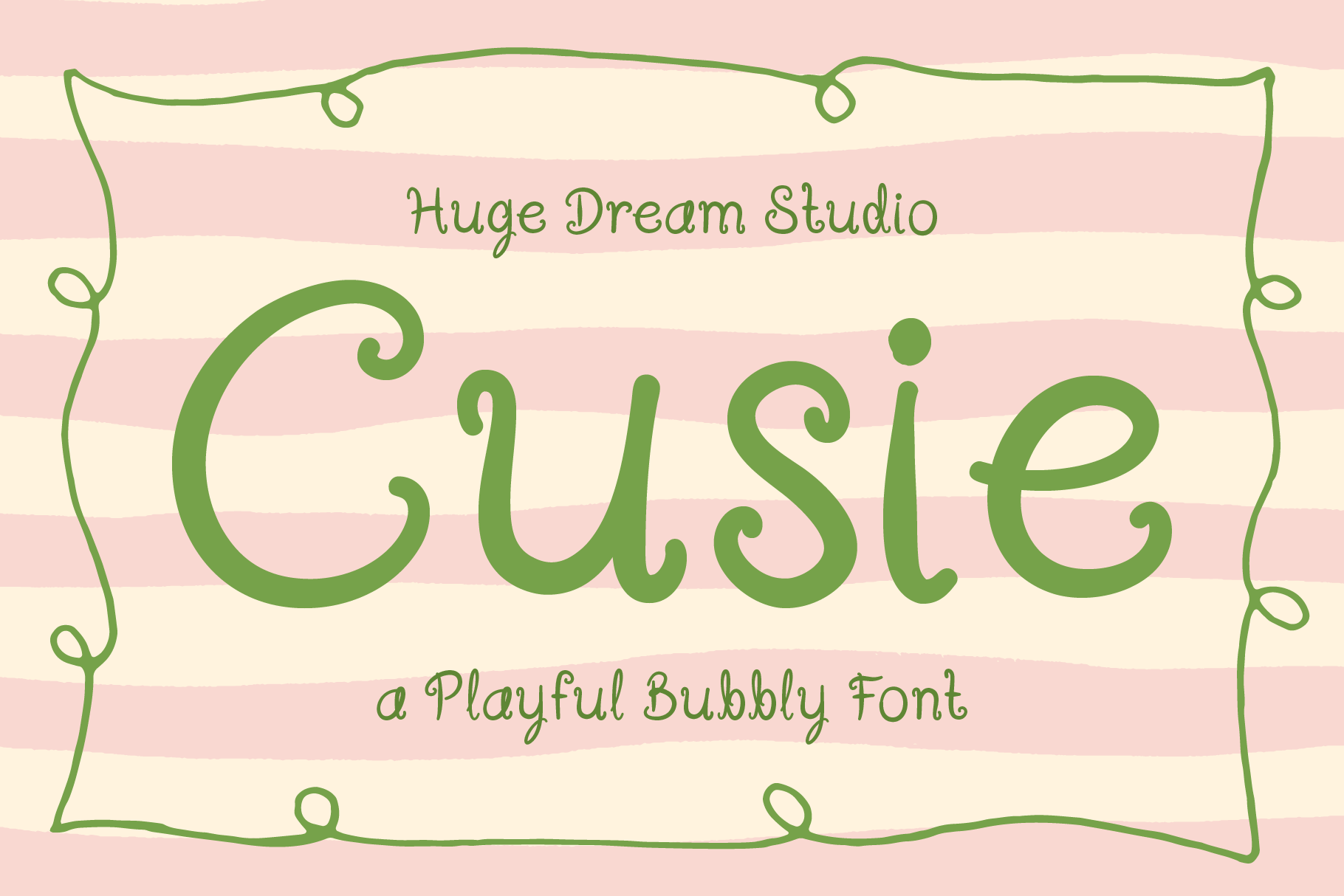
Cusie - Playful Bubbly Font
Cusie – Playful Bubbly Font
Cusie – Playful Bubbly Font is a cheerful display typeface that brings a burst of personality to any design. With its soft, rounded shapes and lively curves, this font captures a fun handwriting style that feels both natural and full of charm. The curly details add a whimsical touch, making it perfect for projects that need a lighthearted, childish vibe.
Designed to stand out, Cusie-A works beautifully for kids-themed designs, birthday invitations, playful branding, packaging, greeting cards, and social media graphics. Its bubbly letterforms keep things friendly and approachable while still being bold enough for eye-catching headlines.
If you’re looking for a display font that blends handwriting warmth with curly, playful energy, Cusie-A is your go-to choice for creating designs that feel fun, expressive, and full of joy.
Cusie – Playful Bubbly Font features:
Elevate and explore the design possibilities with this Curly Handwriting Font!